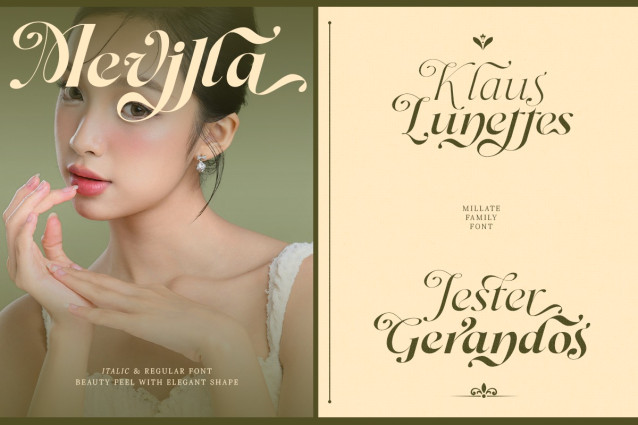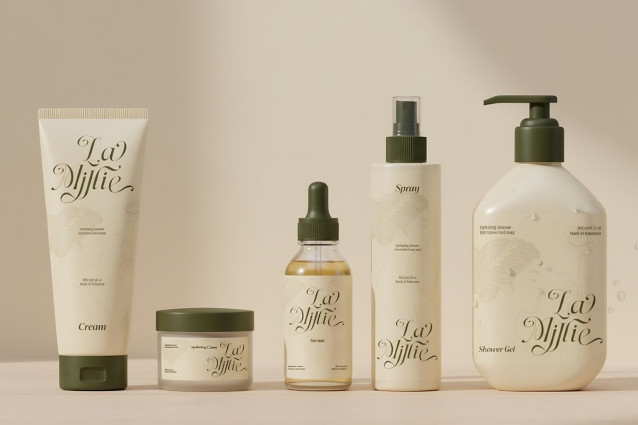
Dh Milate Font
Dh Milate Font is a beauty-inspired elegant serif family crafted with smooth curves, graceful contrast, and a naturally refined aesthetic. Designed for modern branding, cosmetic packaging, editorial layouts, and premium lifestyle visuals, this typeface brings a soft, feminine, and sophisticated character to any project.
This family includes 16 complete styles (8 Weights + Slanted) — Thin, Thin Slanted, Extra Light, Extra Light Slanted, Light, Light Slanted, Regular, Slanted, Medium, Medium Slanted, Semi Bold Slanted, Bold, Bold Slanted, Extra Bold, and Extra Bold Slanted — giving designers full flexibility to build harmonious typographic hierarchies. Dh Milate also comes with a powerful Variable Font for smooth weight adjustments across digital, responsive, and modern workflow environments.
Featuring 90+ exquisite ligatures and alternates, Dh Milate offers expressive flourishes perfect for beauty branding, elegant packaging, wedding designs, logo typography, botanical themes, and editorial headlines. A complete PDF specimen is included for clear previewing of every style, glyph, and feature, and each letterform is crafted to deliver elegance, softness, and natural luxury — ideal for brands that want to communicate purity, femininity, and premium sophistication.